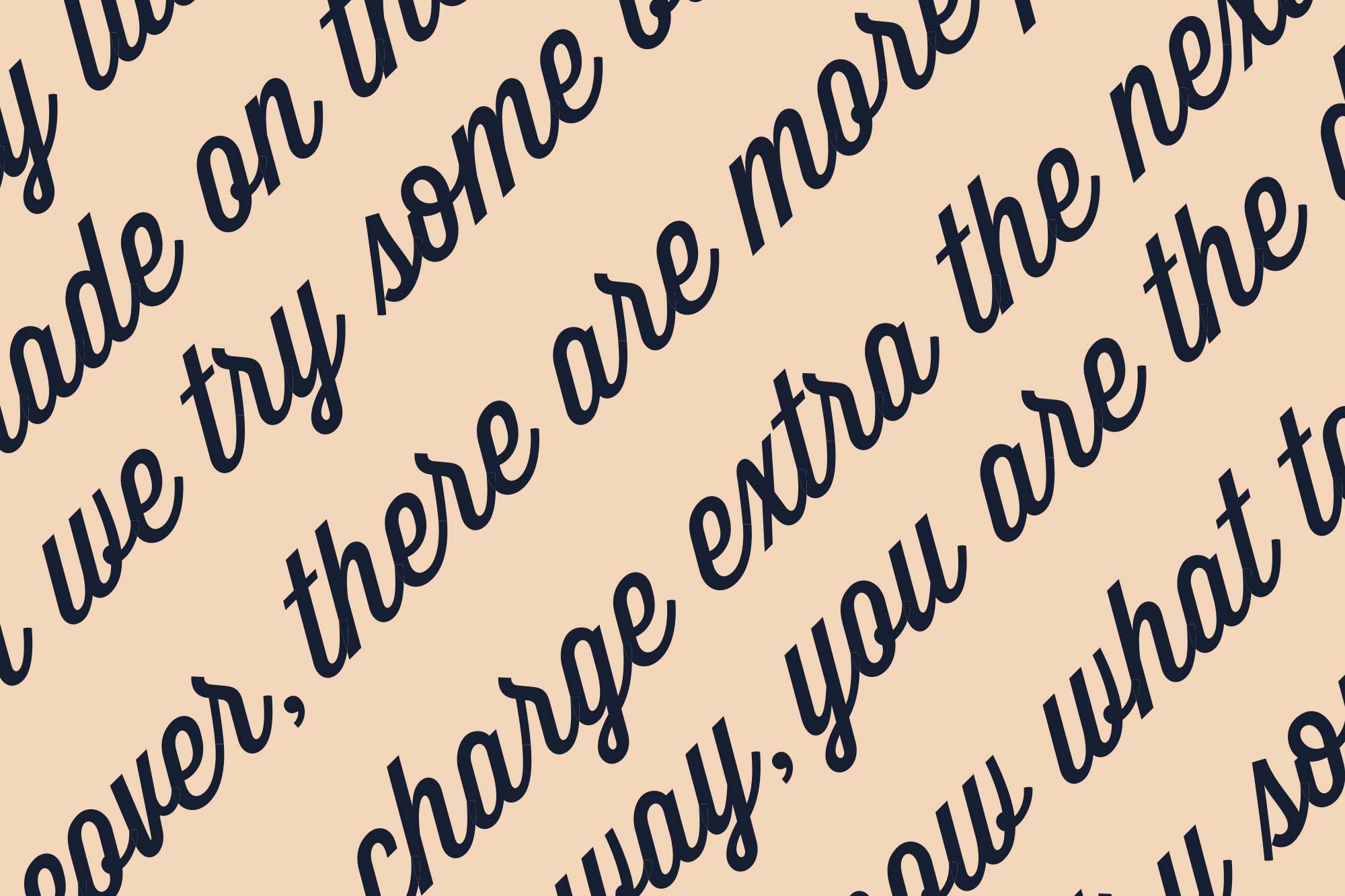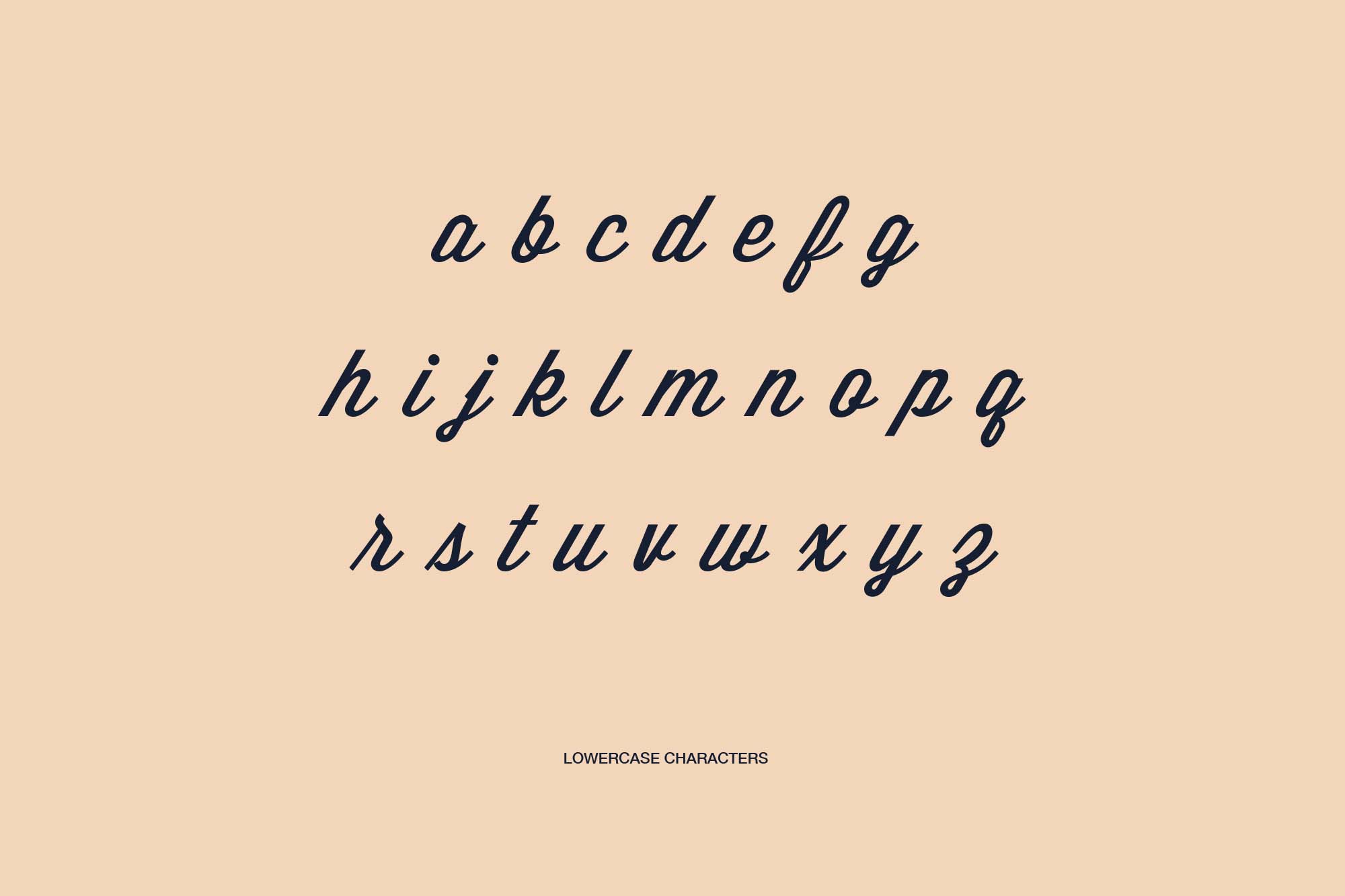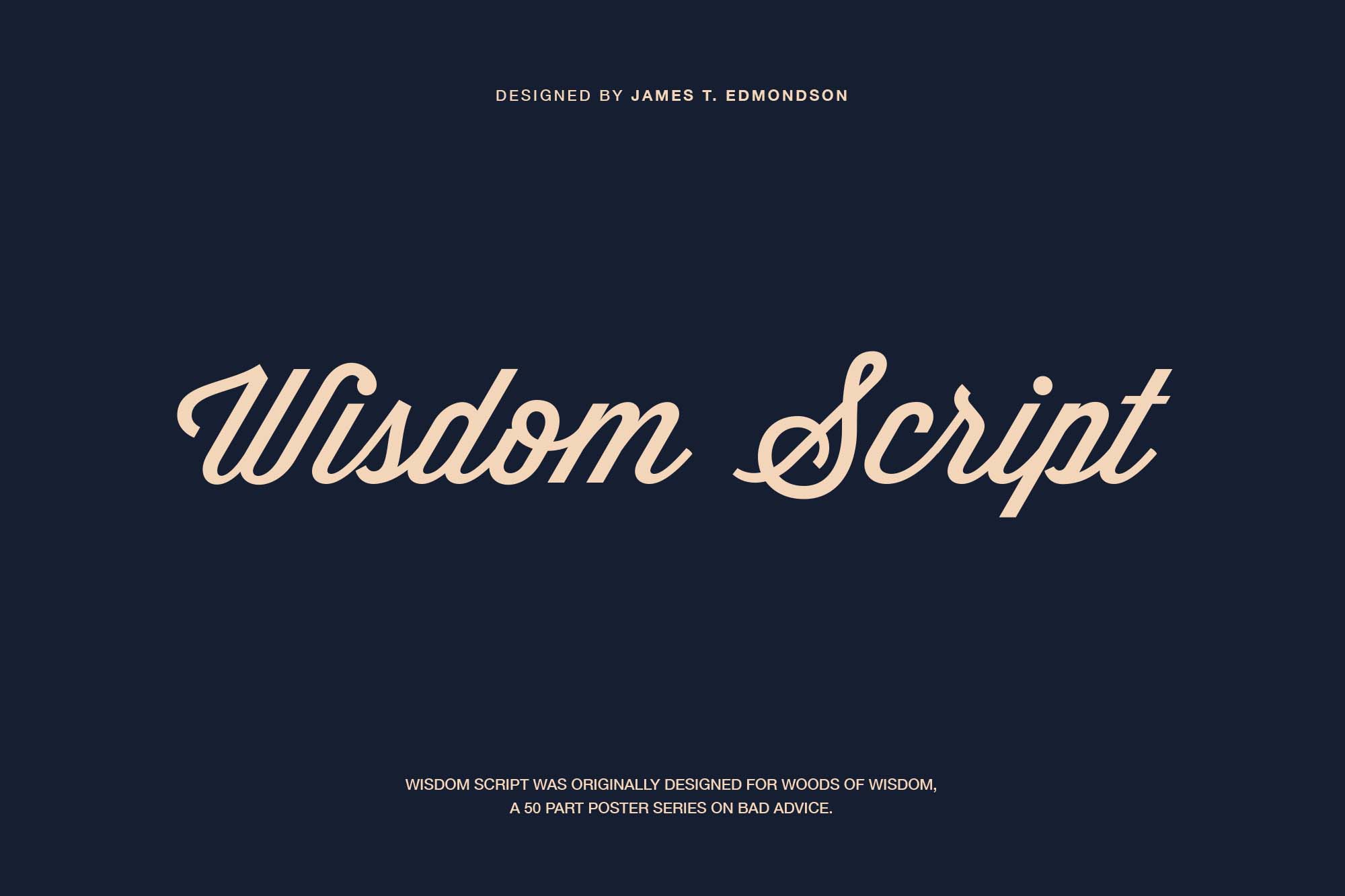
Wisdom Script Google Font
The wisdom font will give your font book a pretty and unique splash. Like every geometric script fonts, wisdom will be great for your print works. This makes the font easy to read.
Wisdom script font introducing wisdom script font that has amazing typeface. The wisdom font is a beautifully crafted, hand drawn script font. It has only one weight and 109 glyphs.